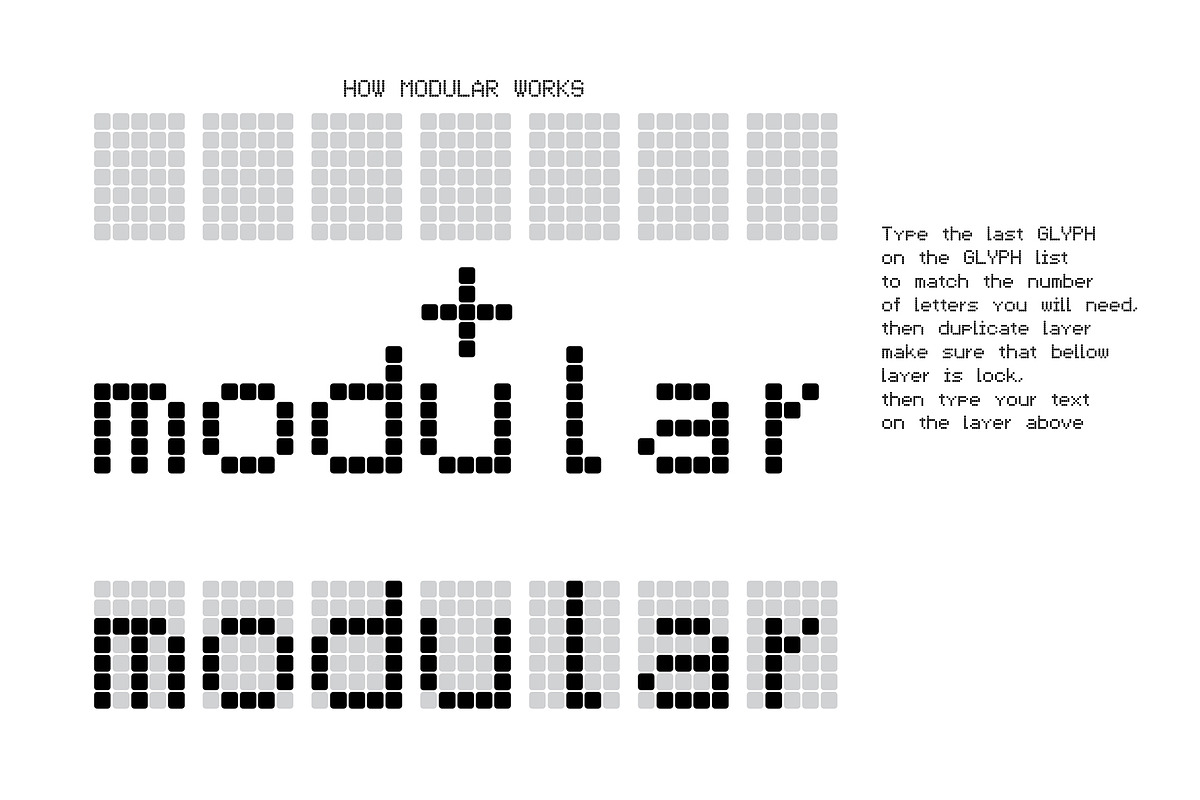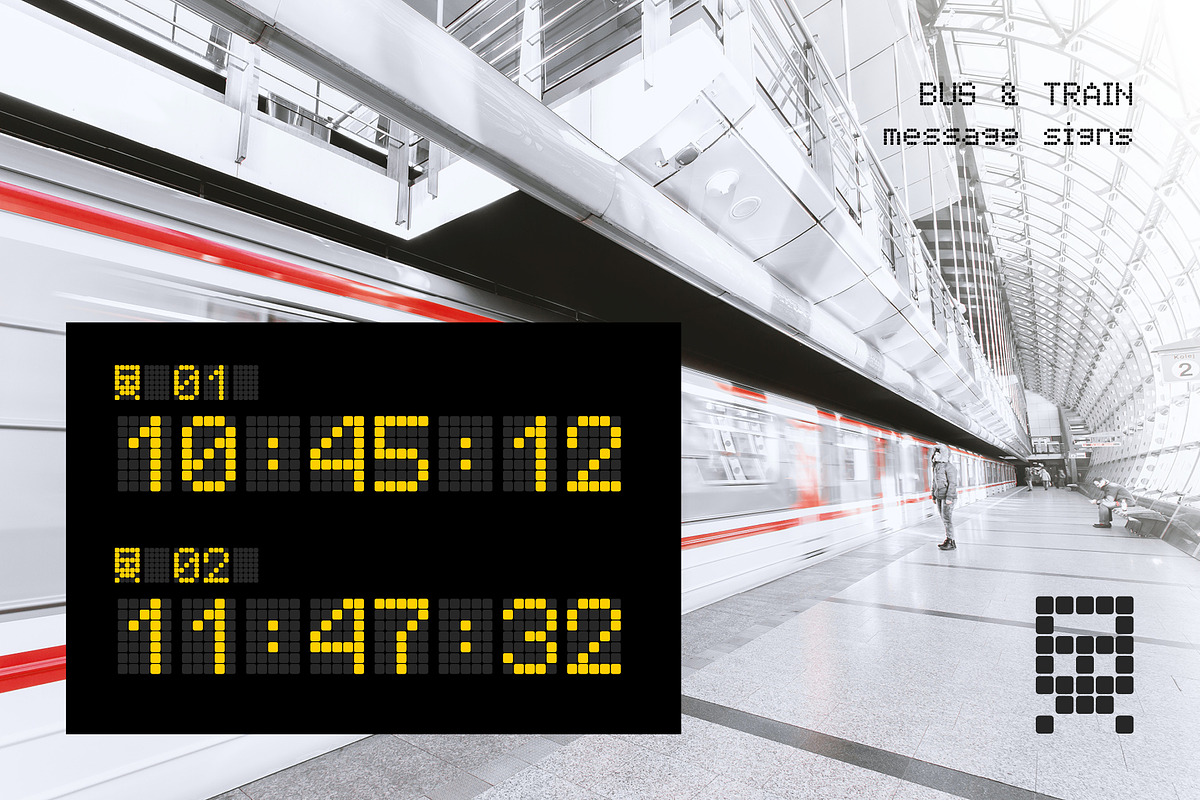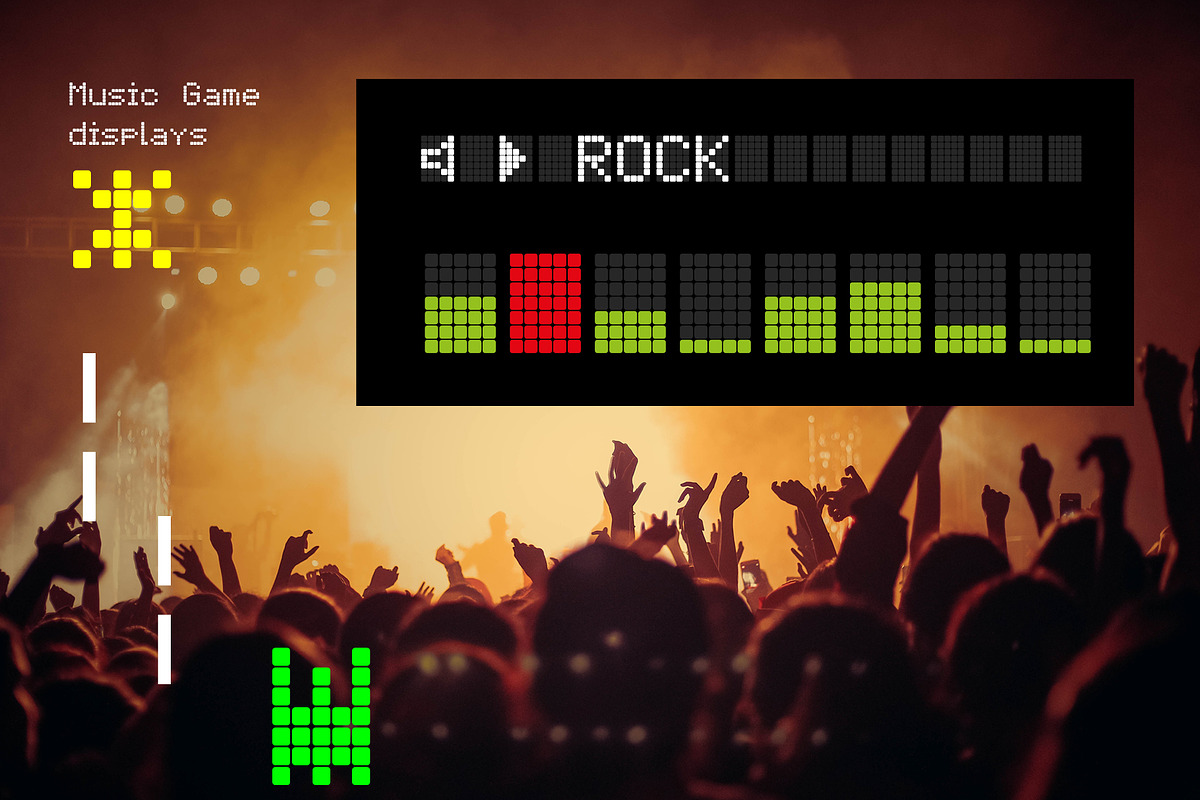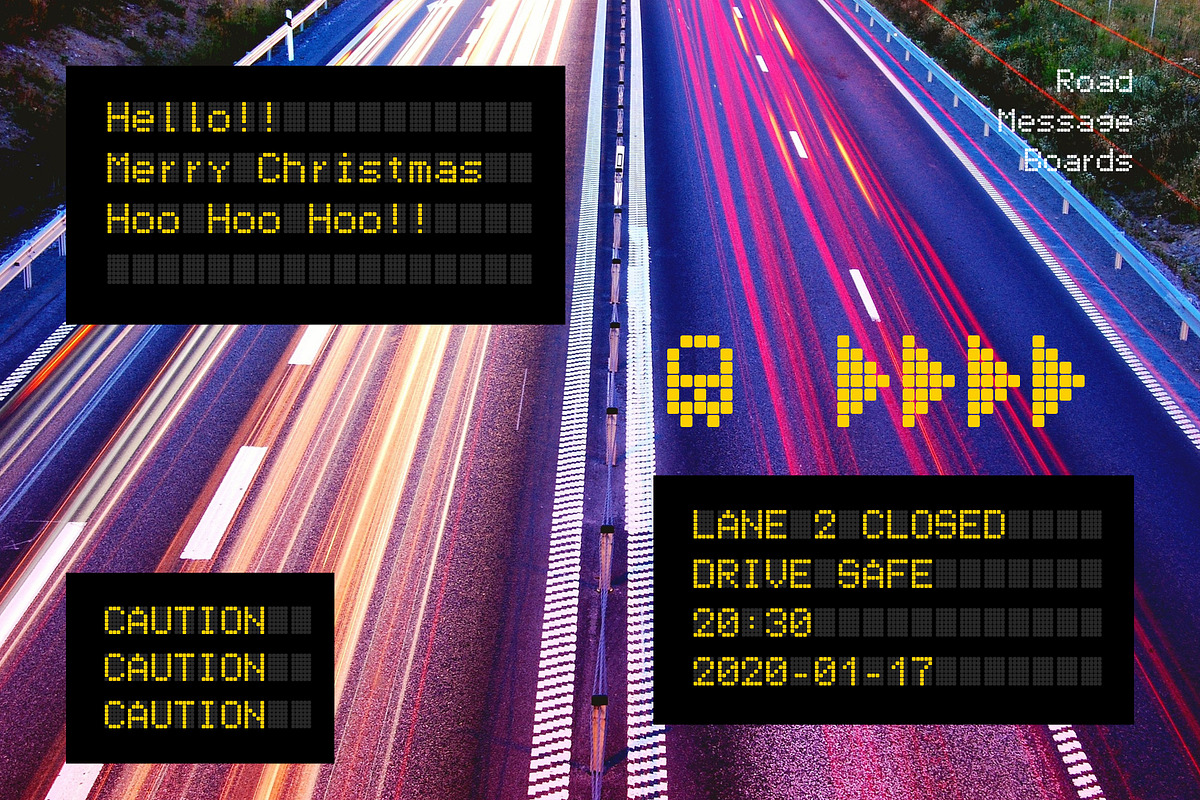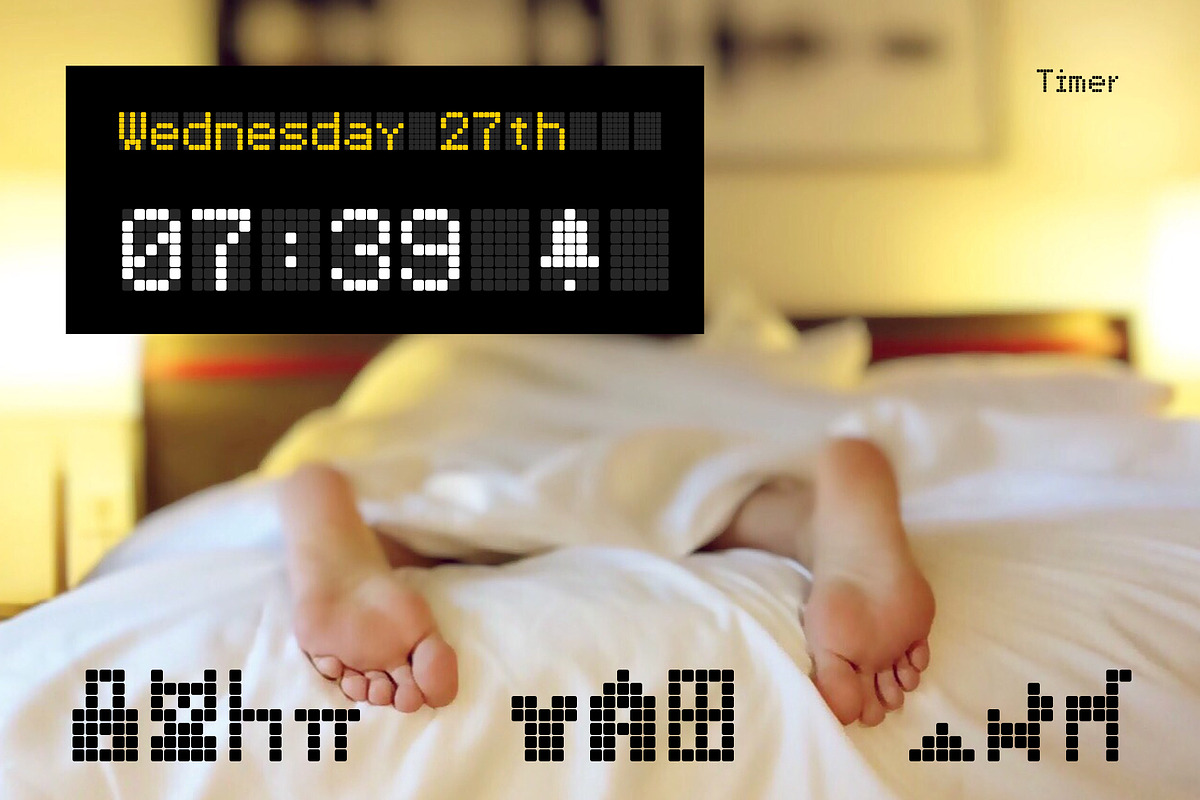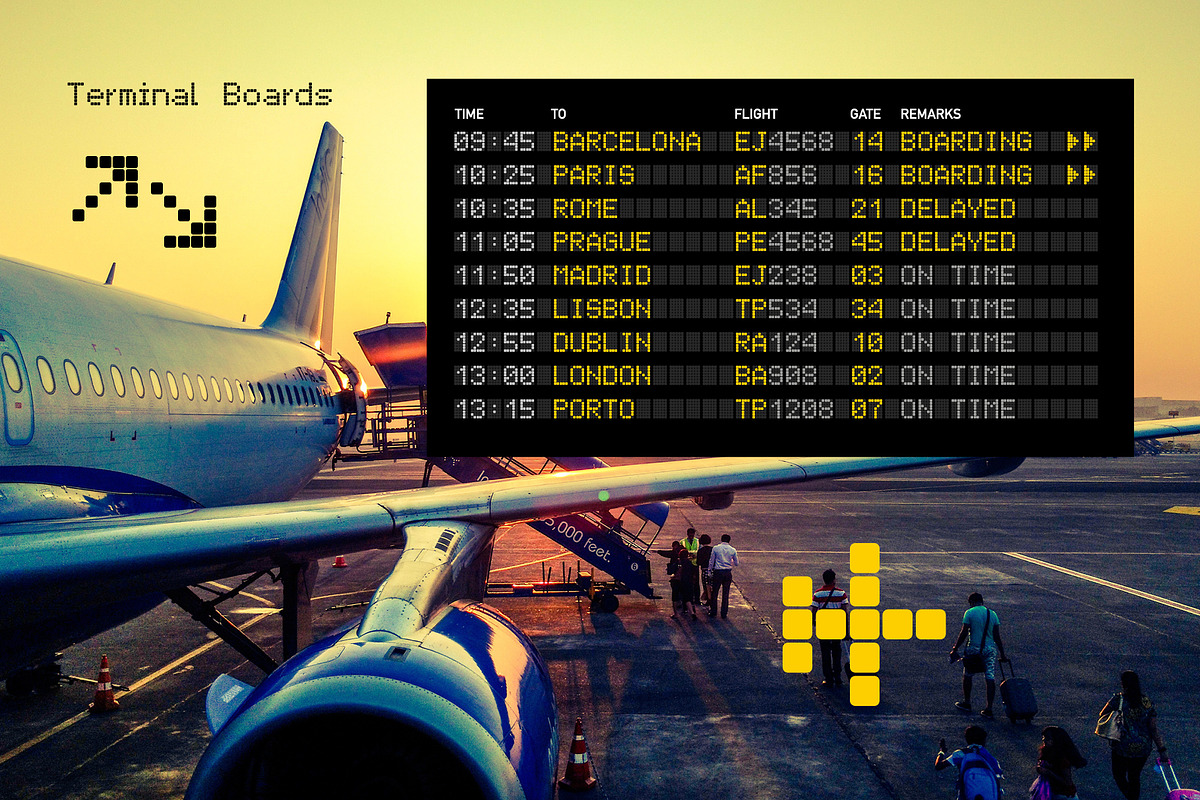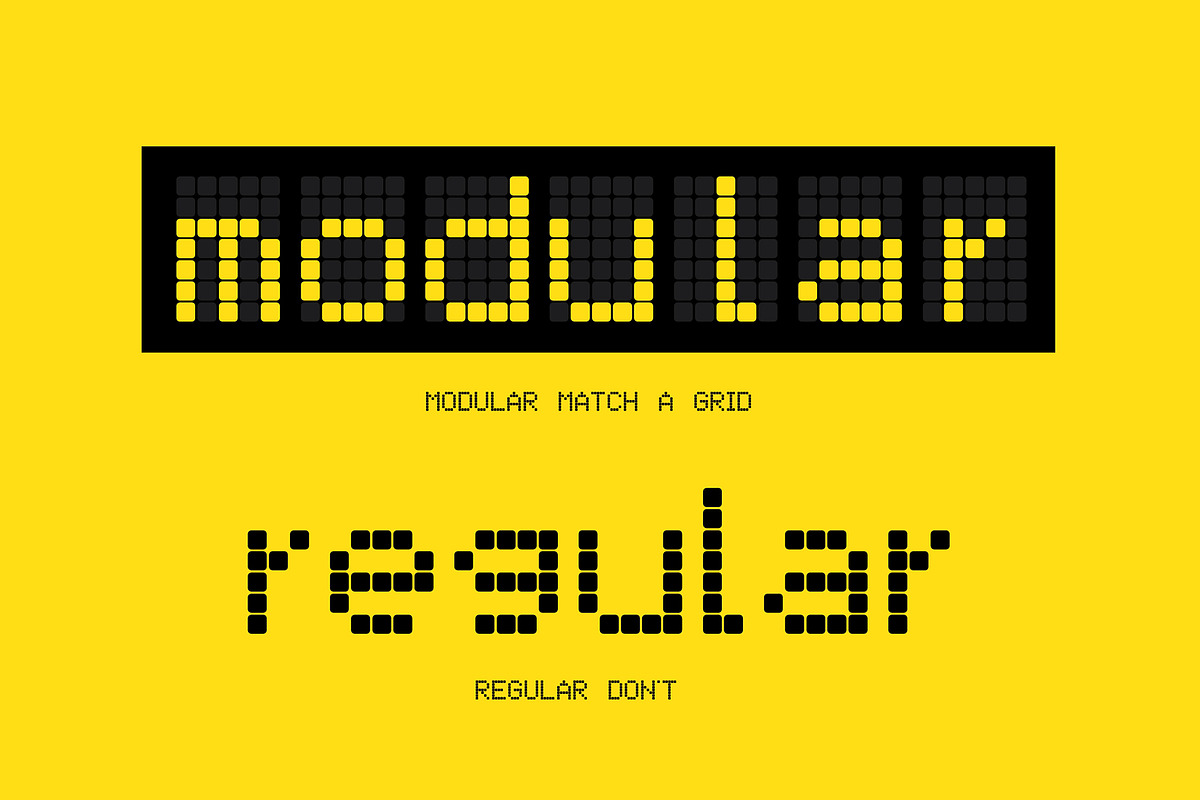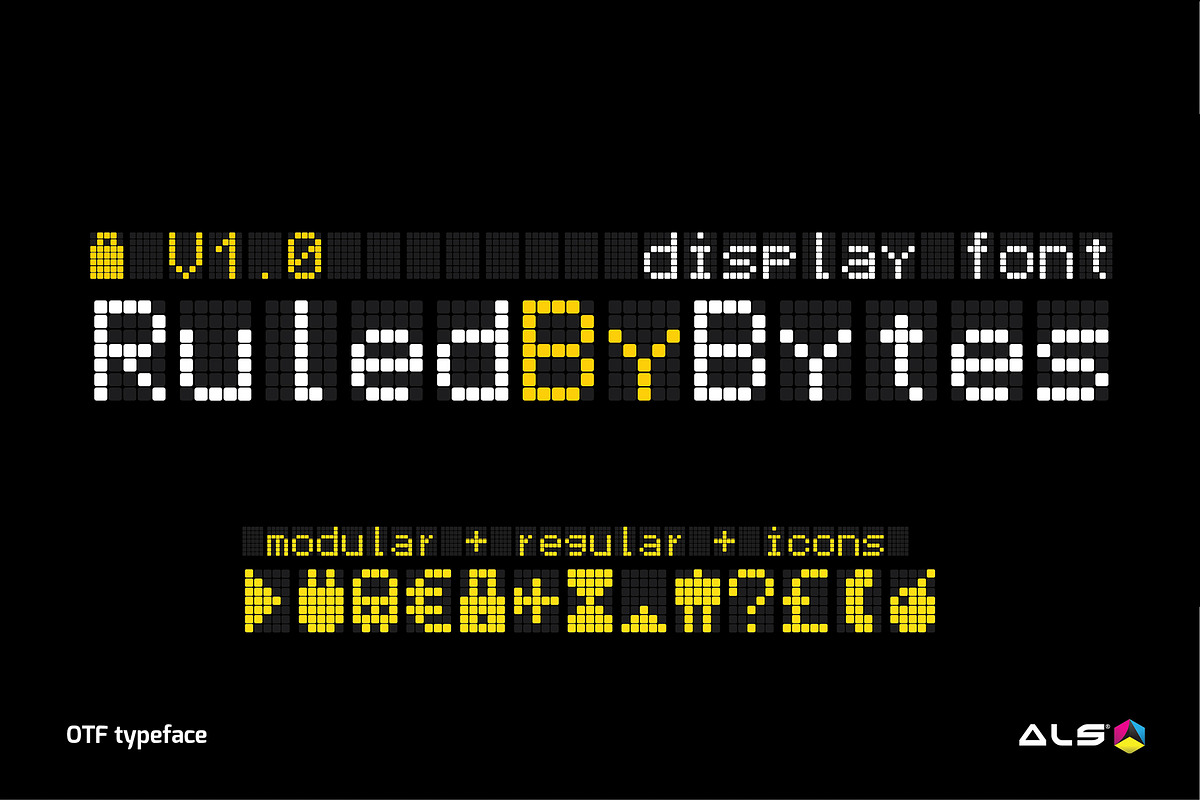
Ruled By Bytes Typeface
Dot matrix font based on the led displays boards, found in stations, airports, hi-ways, sport events and much more. There are 2 typefaces one modular to use in these sign boards and other regular that you can use without this limitation. Both files uses dot grid 7x5
They have both Uppercase and Lowercase and a collection of symbols complete the set.
They don't support any Diacritics yet, soon for all European languages for regular version.